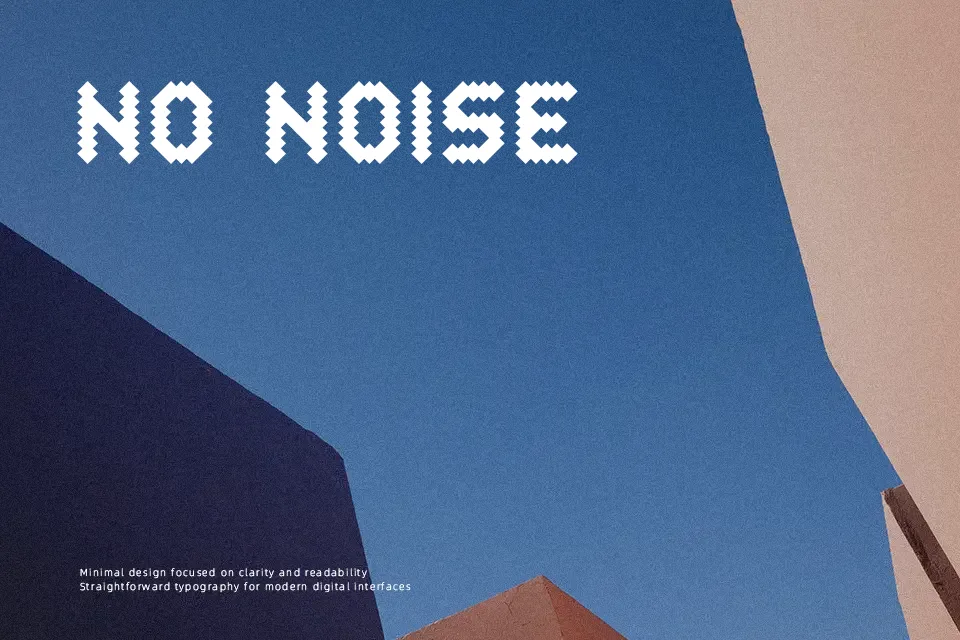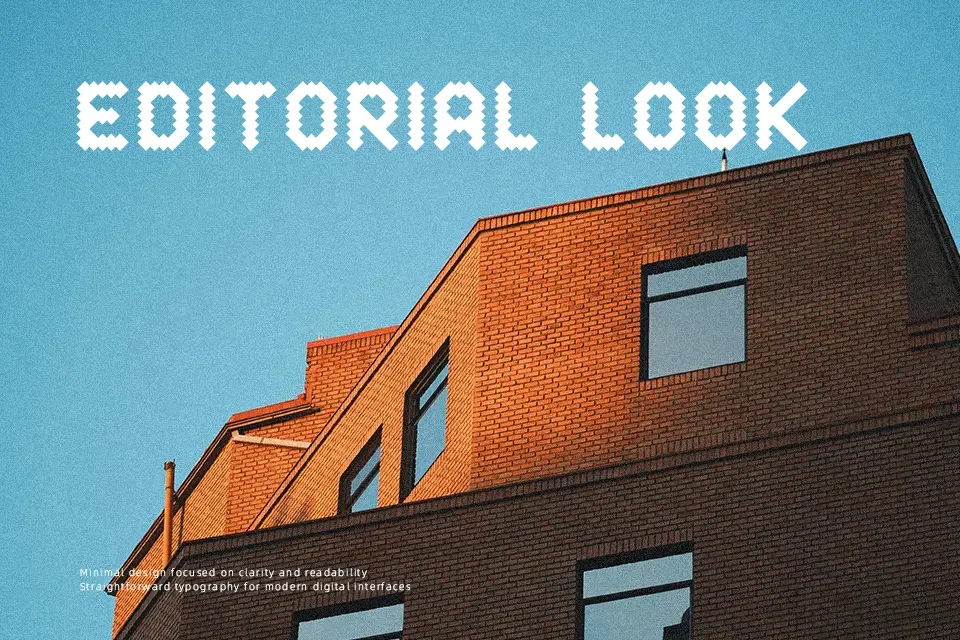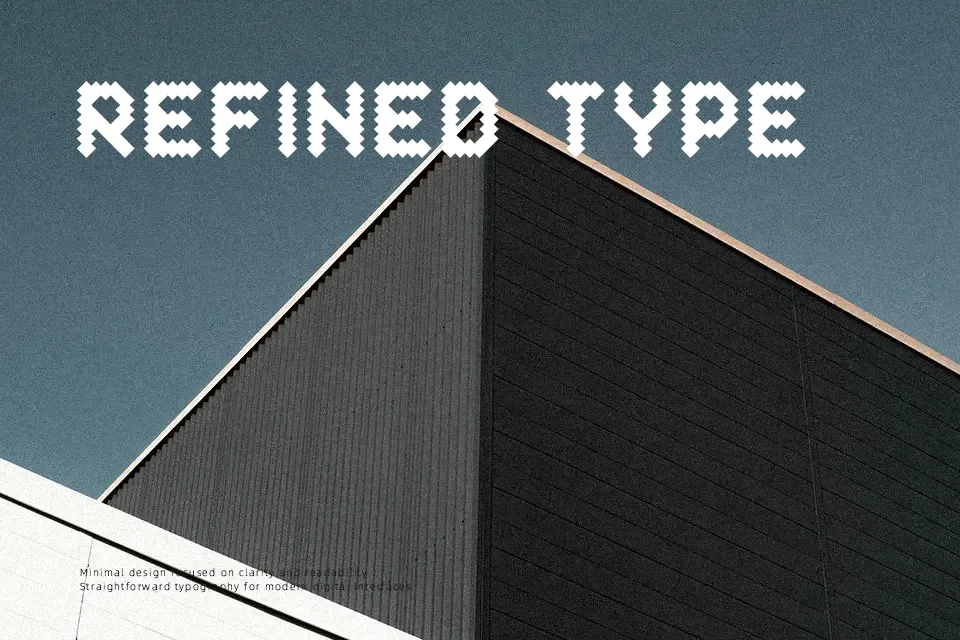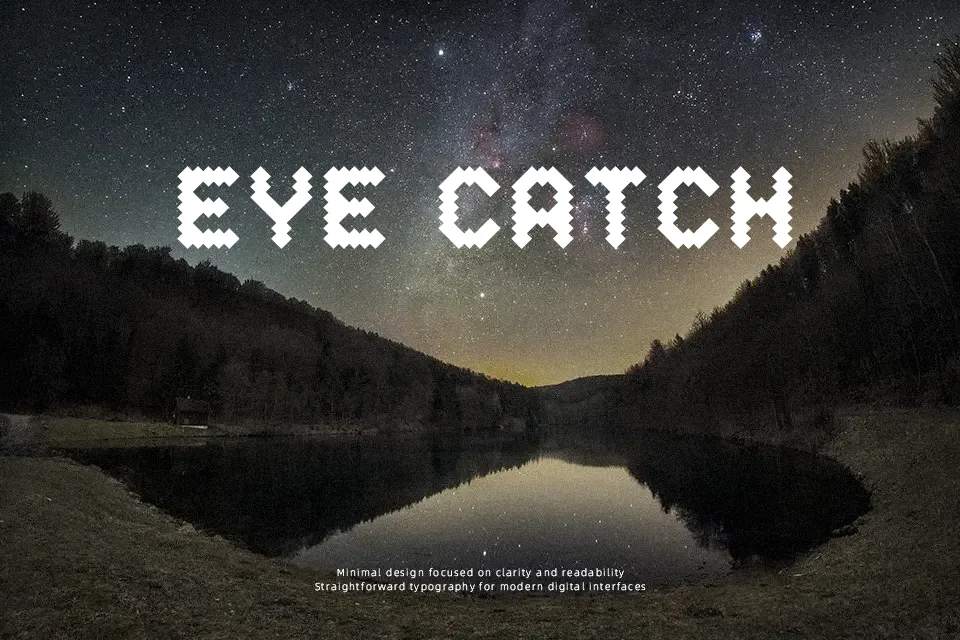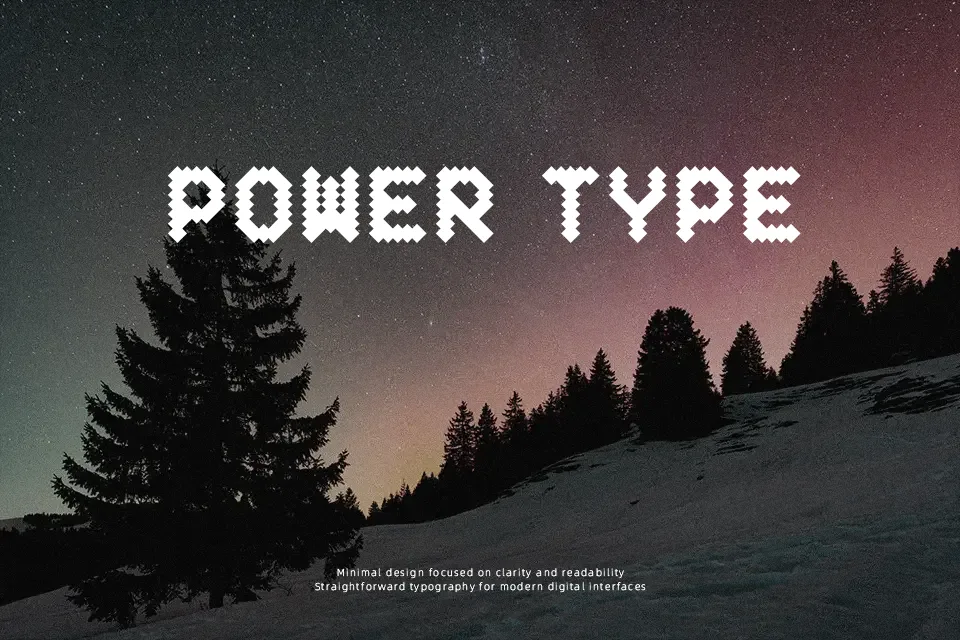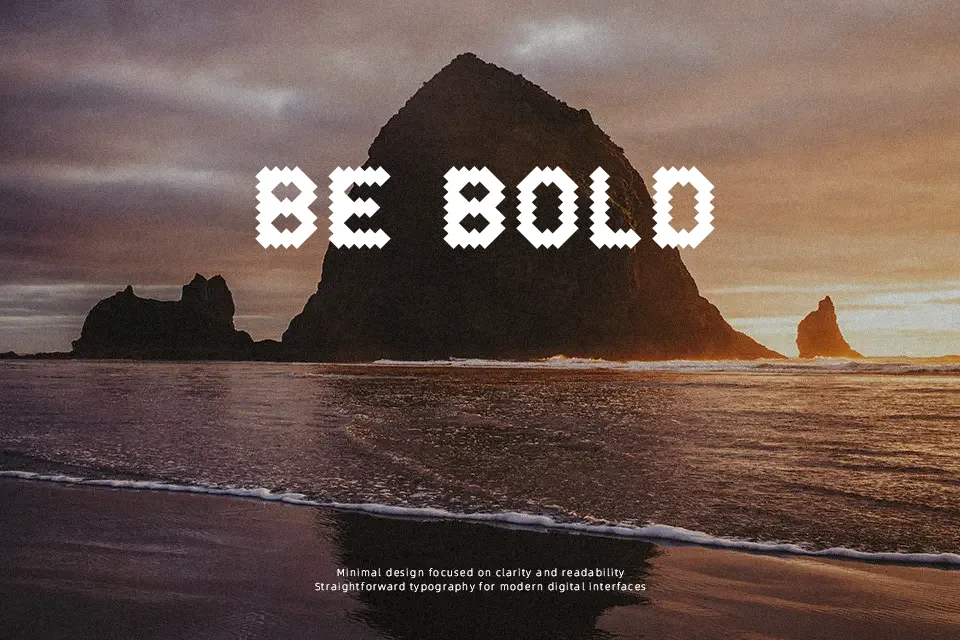
Rhombic Font
Designed by GGBotNet
Rhombic Font is a structured geometric typeface defined by its sharp angles and distinct diamond-inspired structural forms. The rigid, diagonal strokes create a highly technical appearance with consistent character proportions and balanced spacing. Because the letterforms prioritize strong visual impact over traditional curves, the design carries a decidedly futuristic and energetic tone. The open spacing helps maintain clarity in larger headlines, allowing the crisp geometry to stand out effectively. However, the unconventional angles and dense forms reduce continuous reading comfort, making the typeface less suitable for long paragraphs or small body text. This design performs best when displayed at larger sizes where its mechanical precision and striking silhouette can anchor creative display layouts.
esports team logos
futuristic video game interfaces
tech-focused apparel graphics
Perfect for gaming, logo, and poster, with a bold and display style.